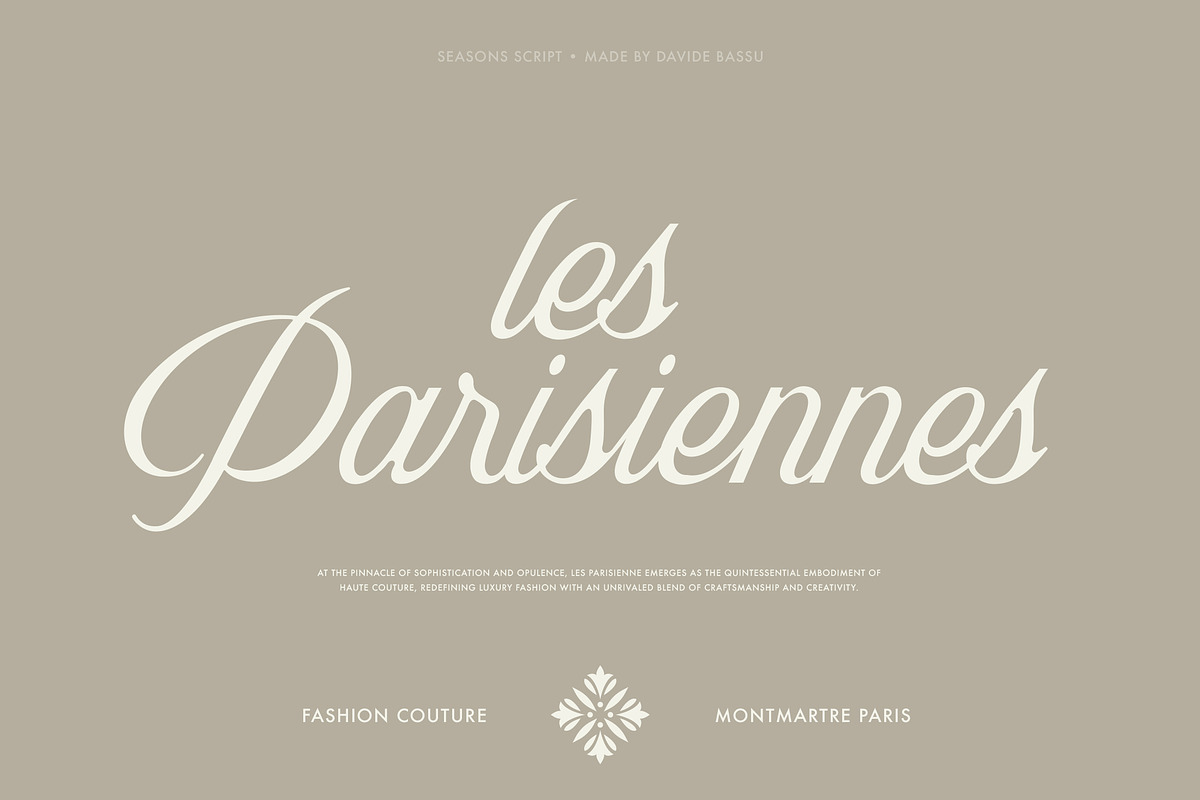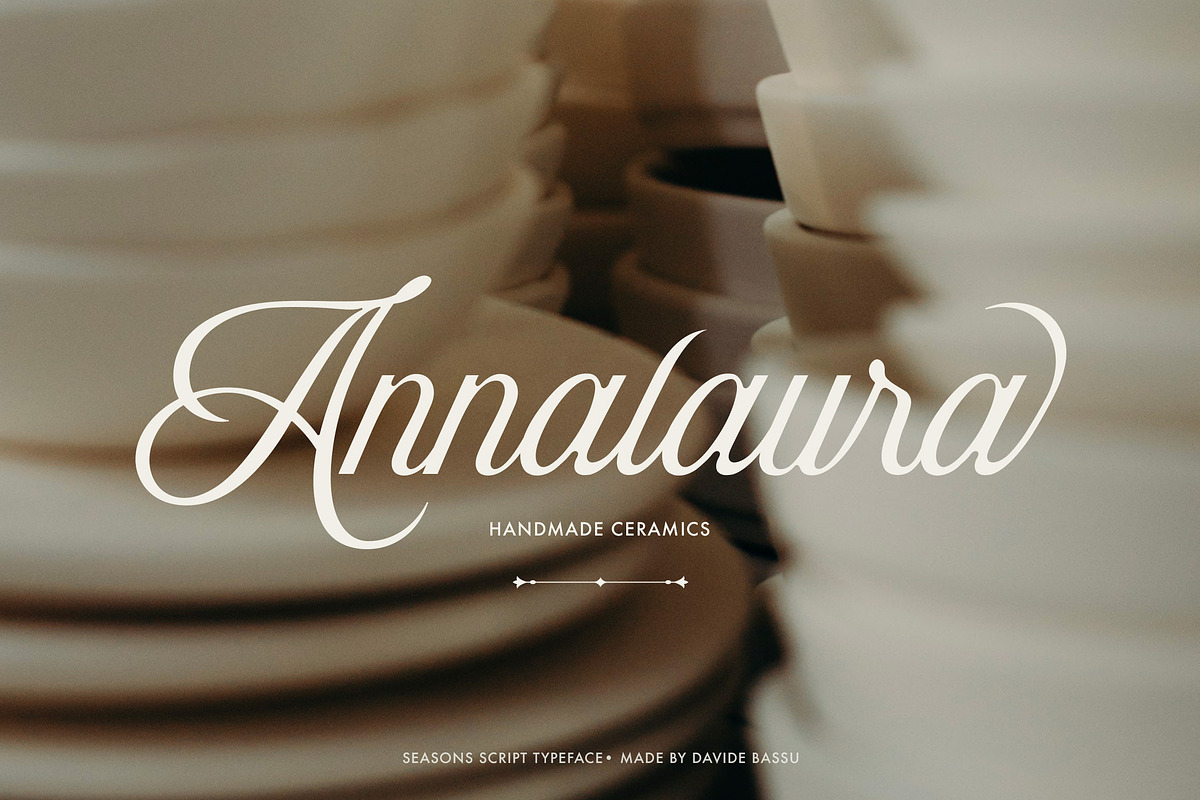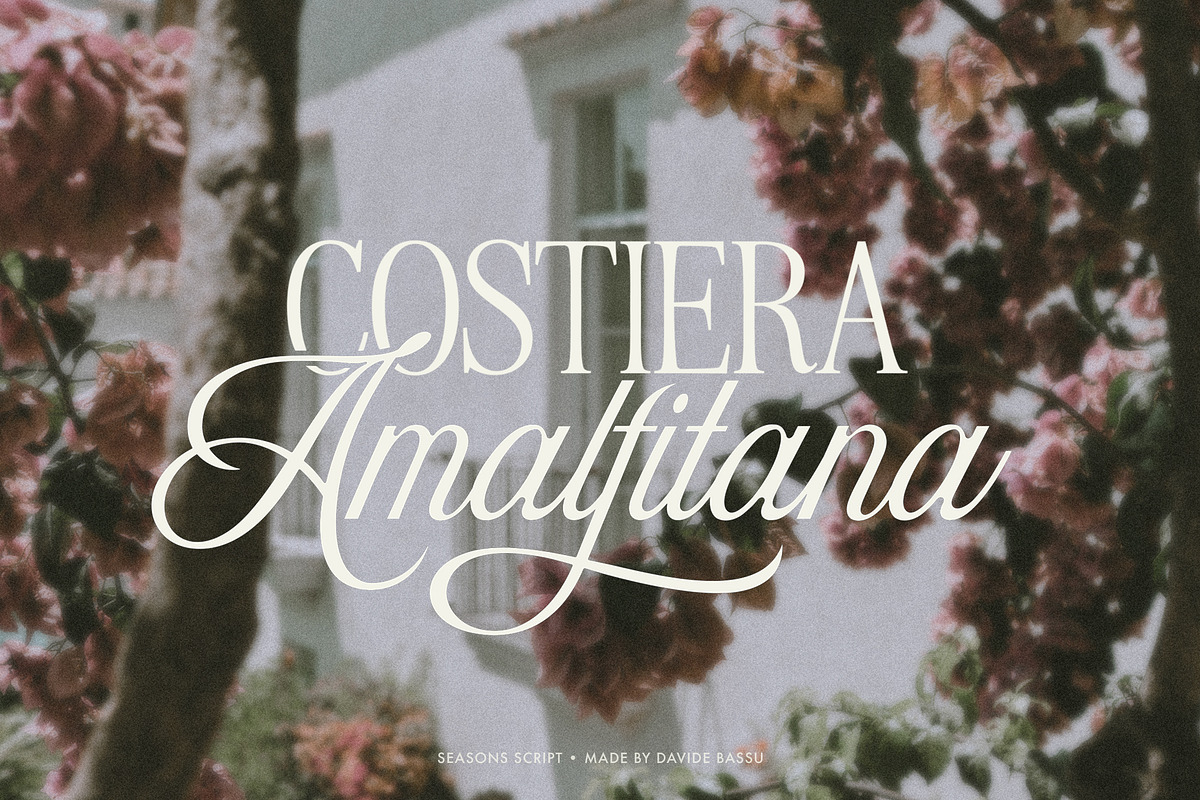
Seasons Script Font is a graceful and romantic script, perfect for a variety of design projects, including logos, wedding invitations, product packaging, and apparel design.
With over 60 stylistic sets, including alternate characters and ligatures, its OpenType features provide flexibility and creativity, allowing the script to adapt seamlessly to any project.